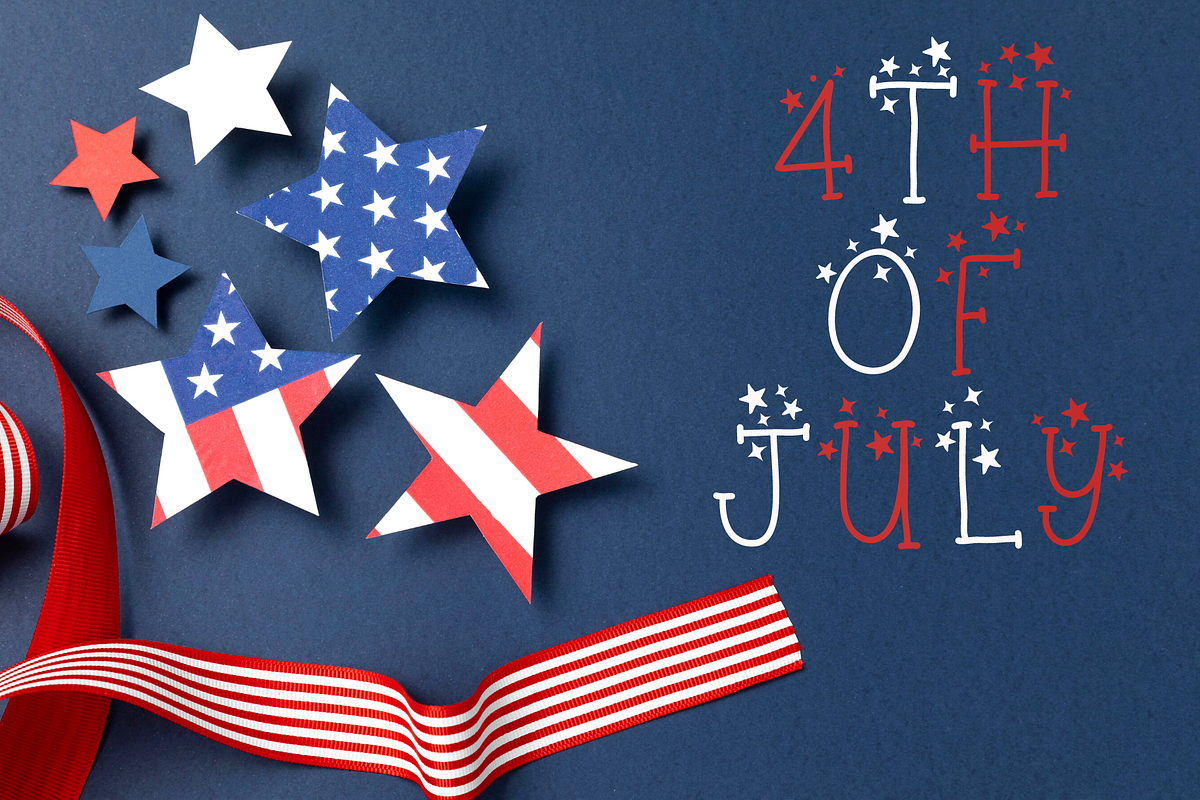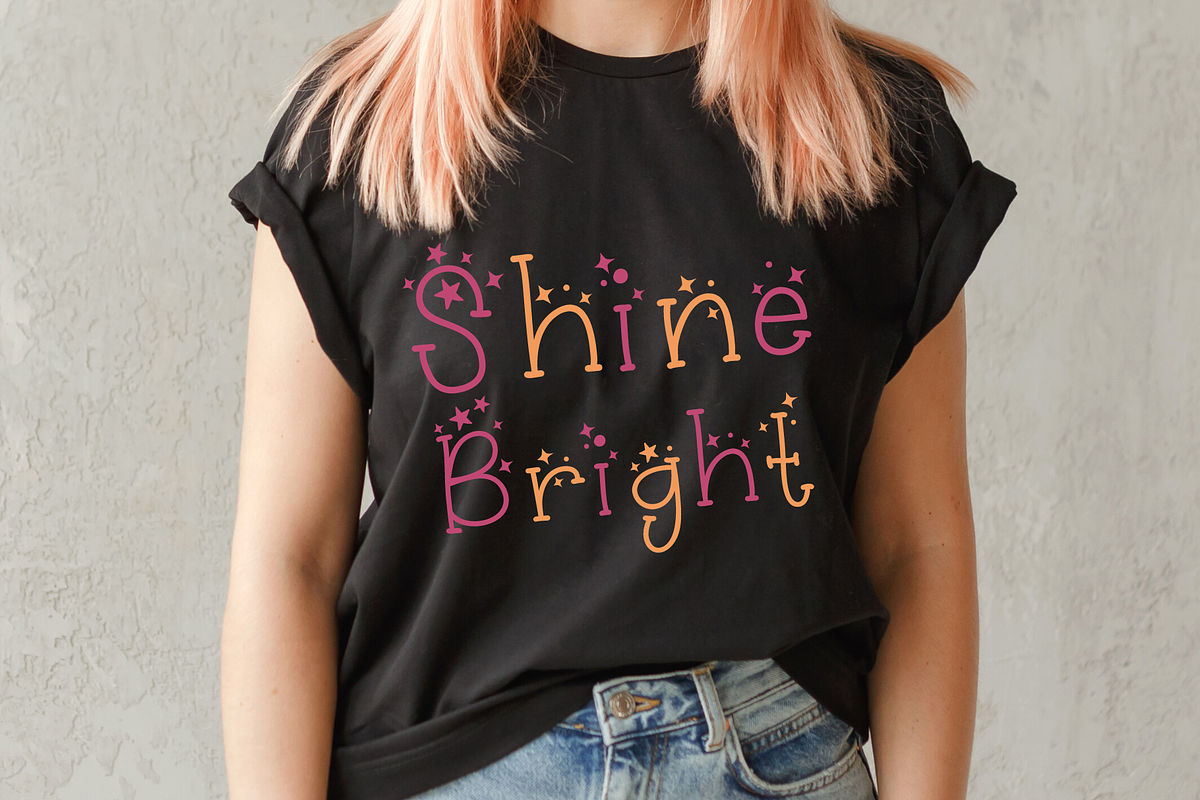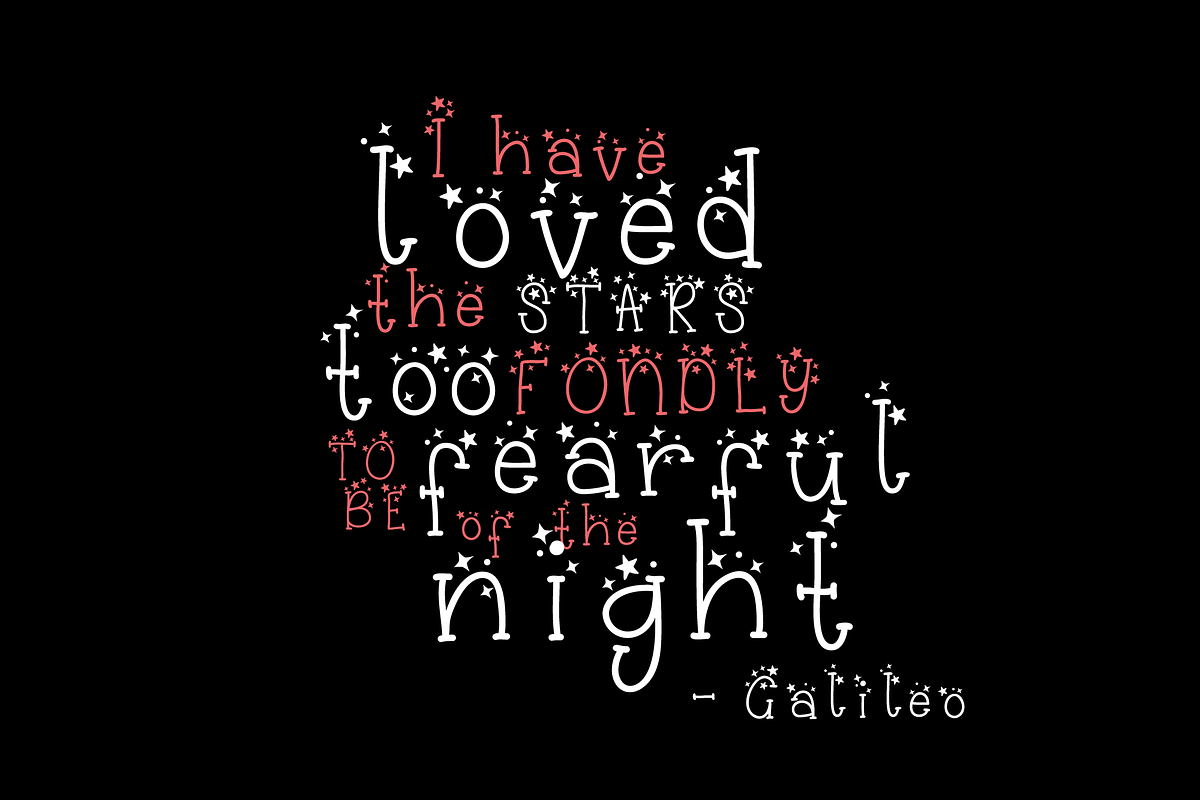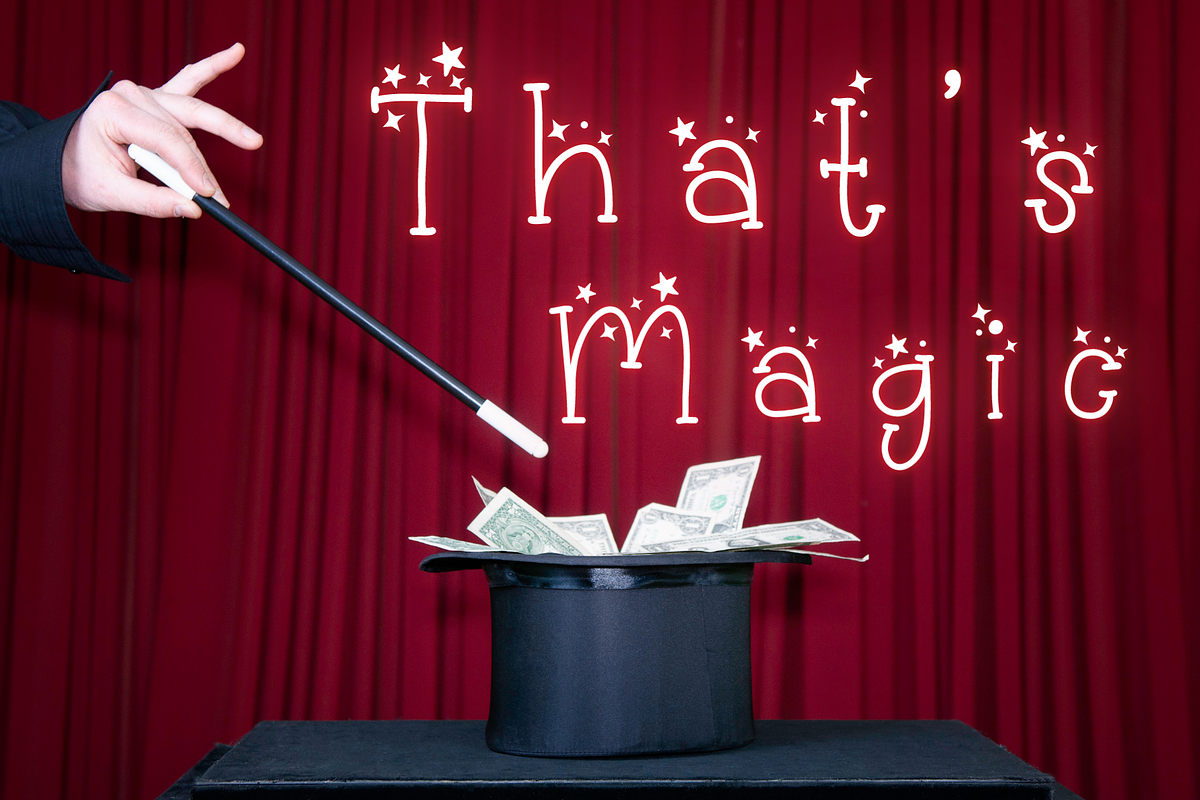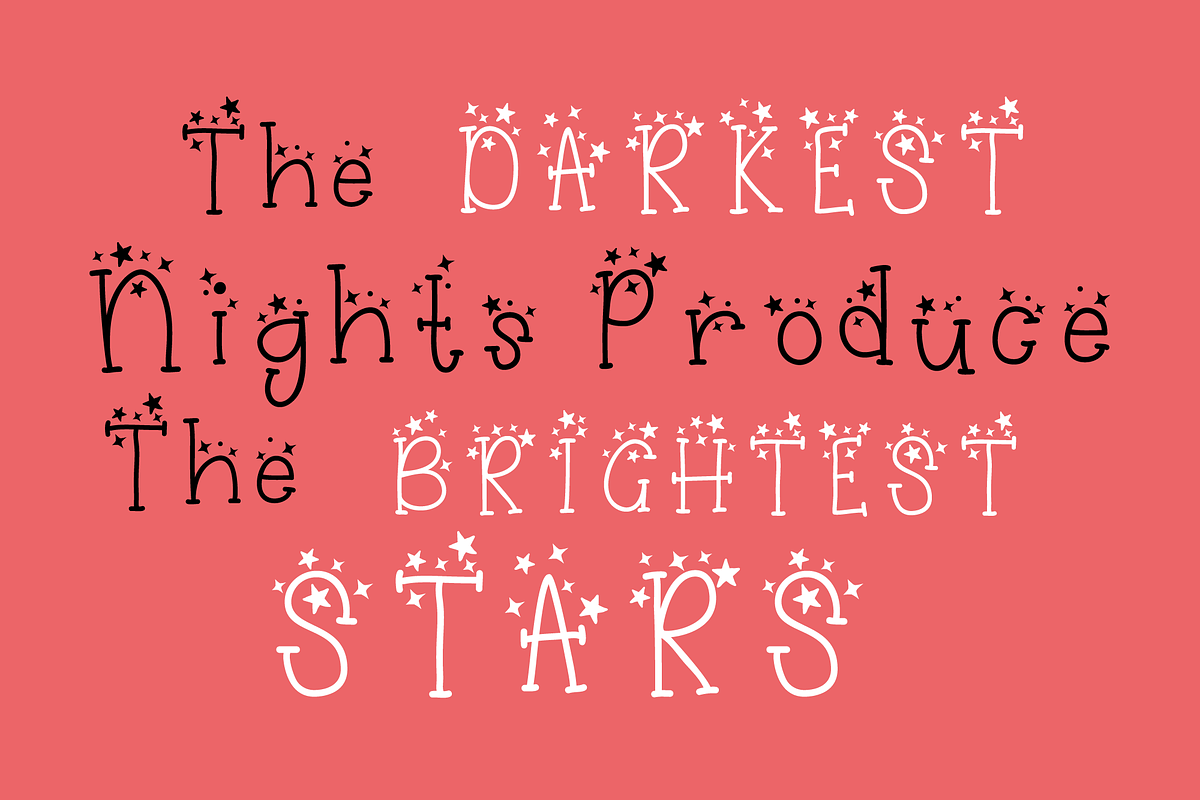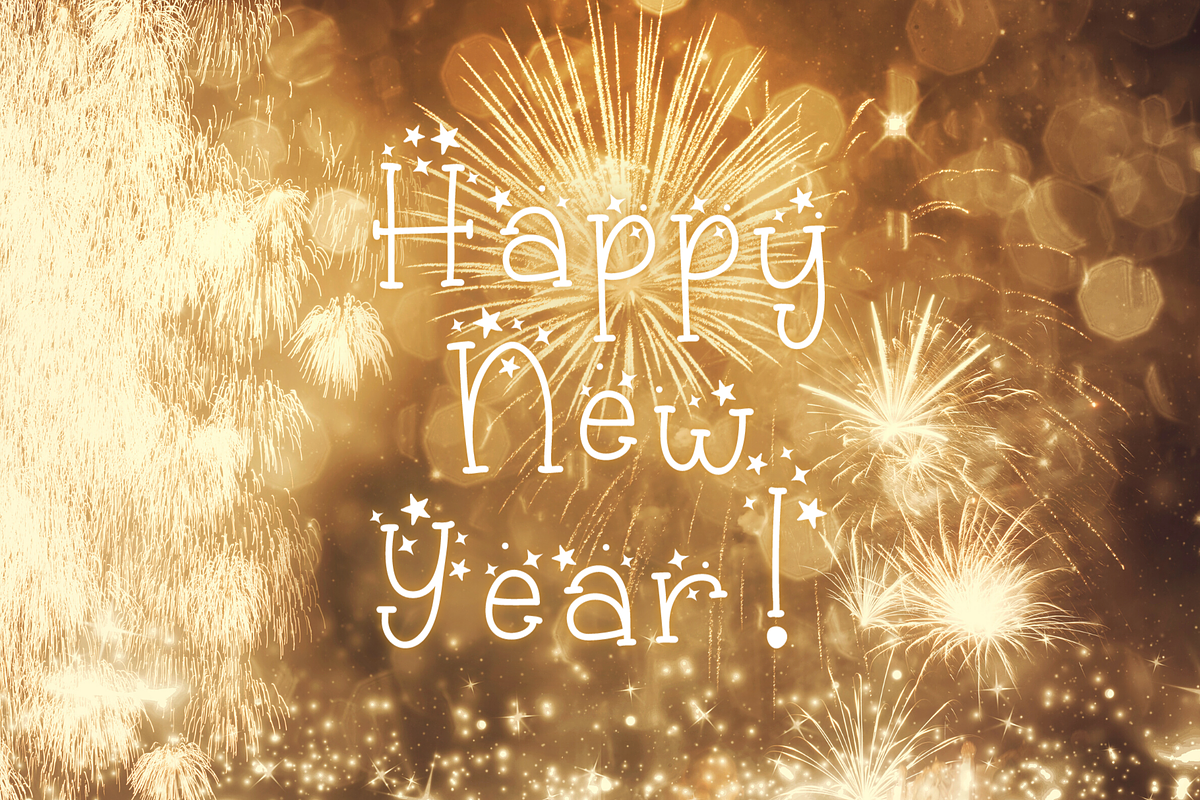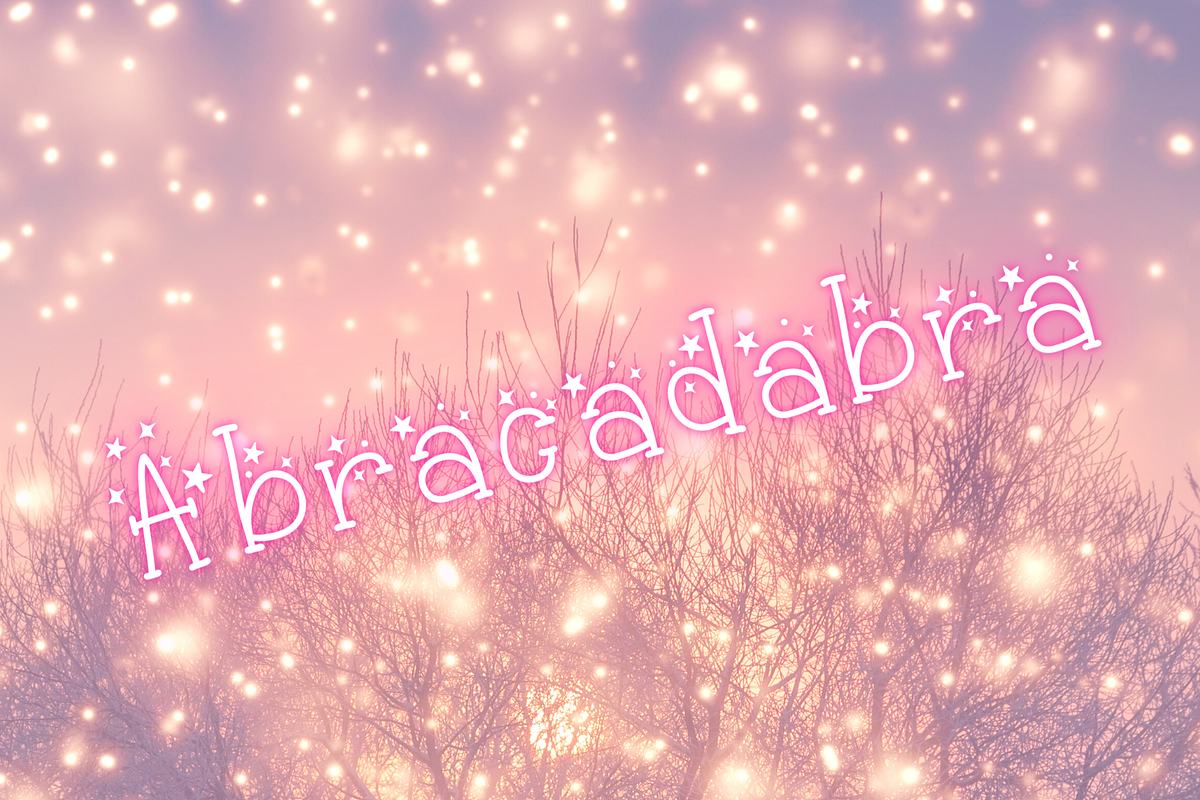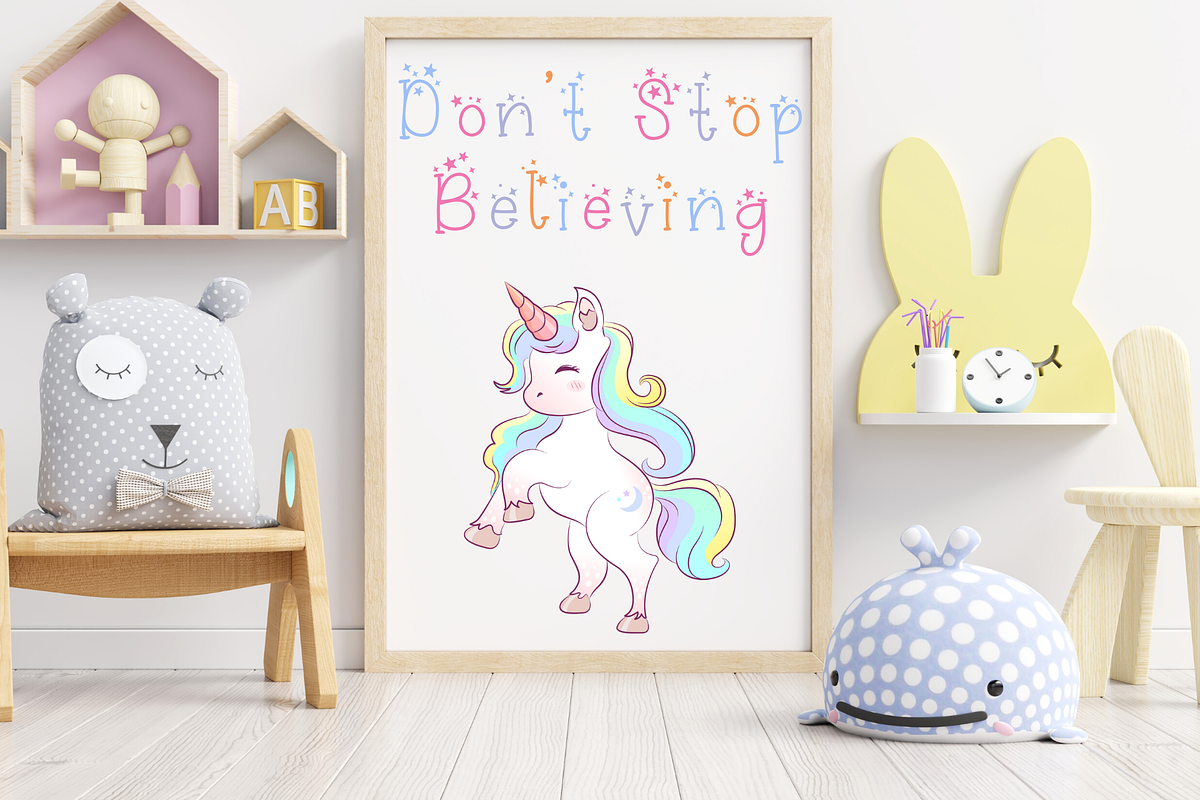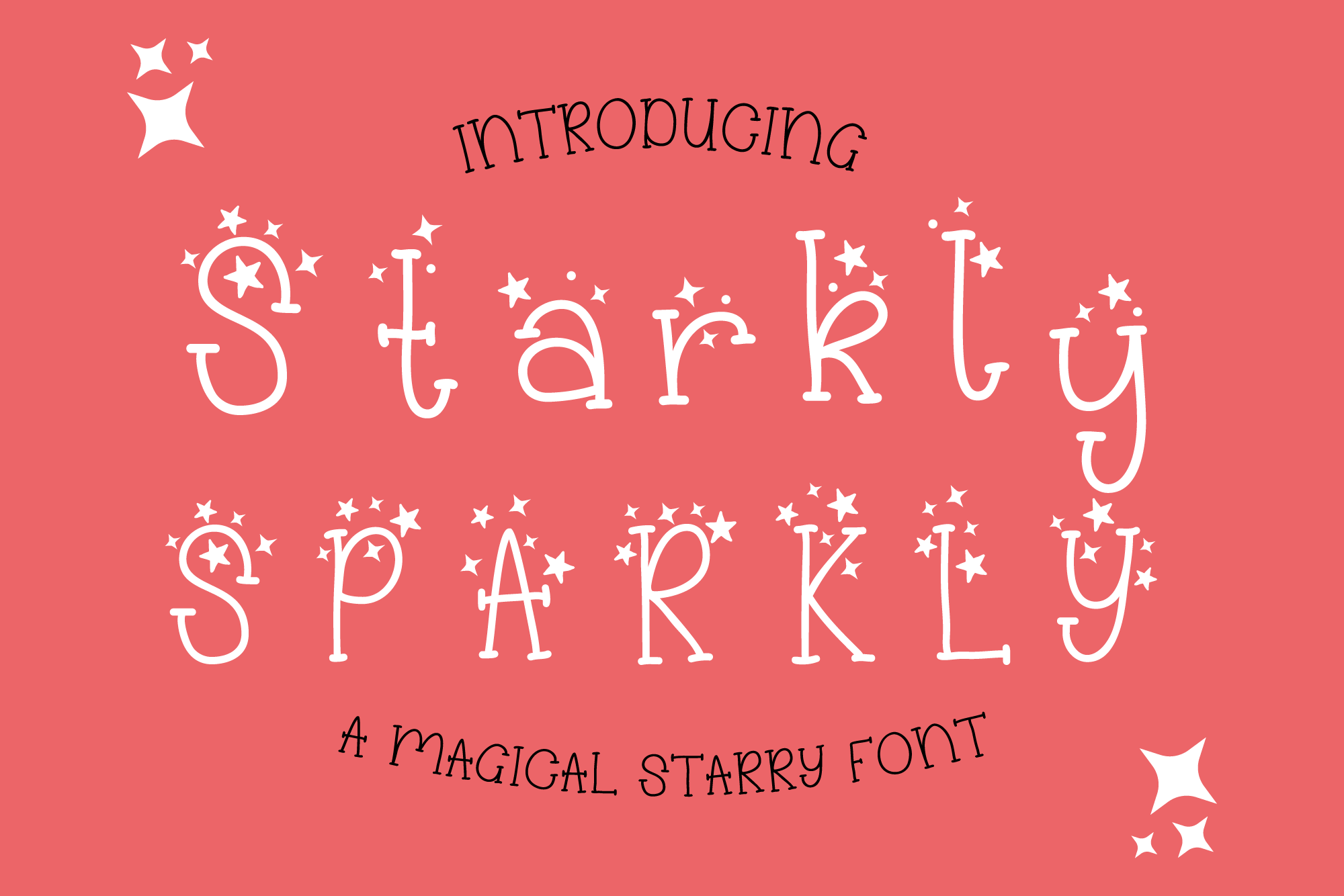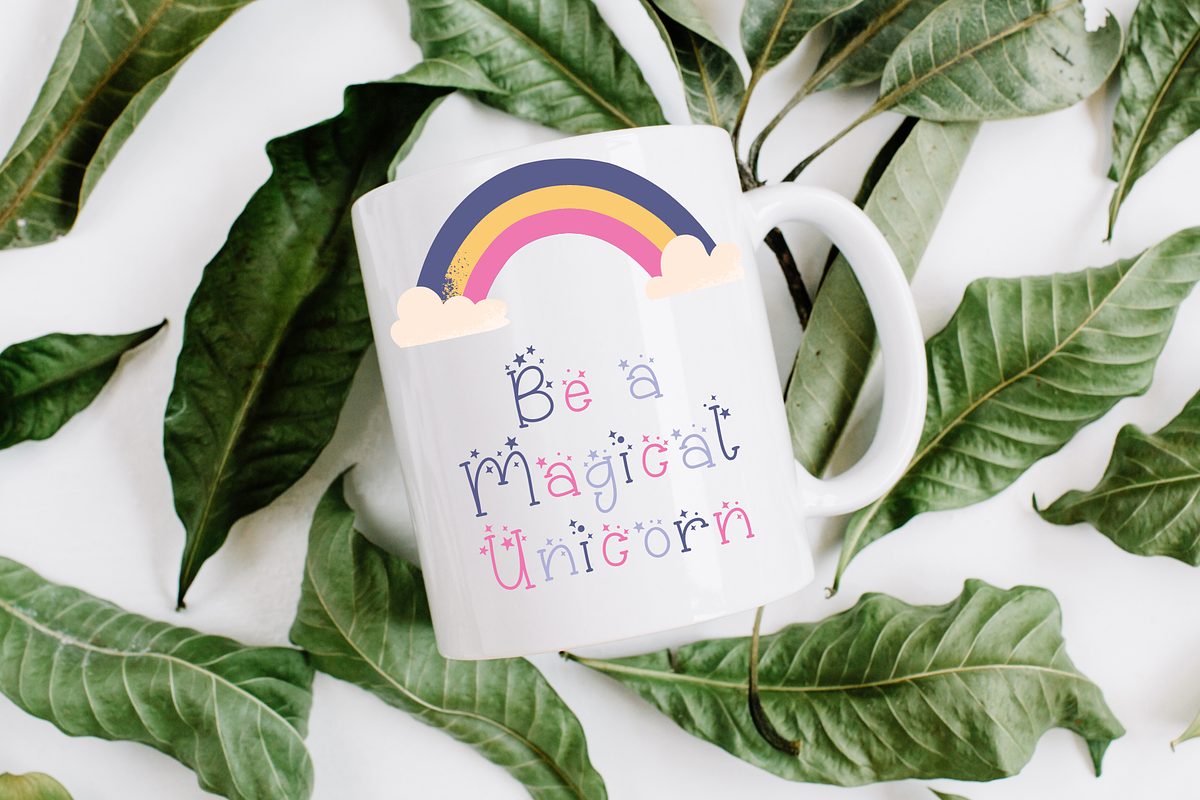
Starkly Sparkly Stars Font
A starry halloween opentype font.
Starkly Sparkly is a festive font with a magical stars design. Perfect for a wide range of applications such as party invitations, flyers, banners, & halloween or Christmas displays.